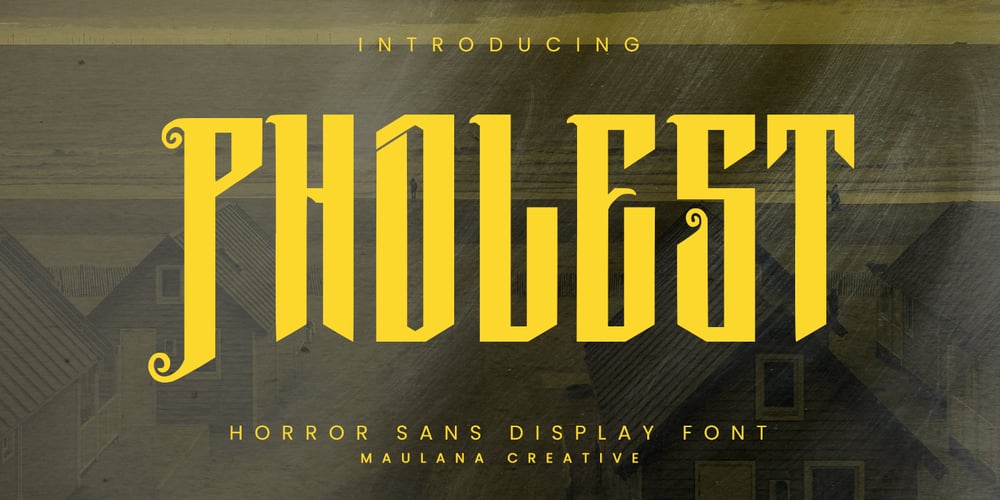
MC Pholest
MC Pholest font
MC Pholest Font Family was designed by Gilang Maulana and published by Maulana Creative. MC Pholest contains 1 styles and family package options. Pholest horror display font. Heavy stroke, vintage character with alternates. To give you an extra creative work. Pholest display font support multilingual language. This font is good for logo design, Social media, Movie Titles, Books Titles, a short text even a long text letter and good for your secondary text font with script or serif. Make a stunning work with Pholest font. Cheers, Maulana Creative